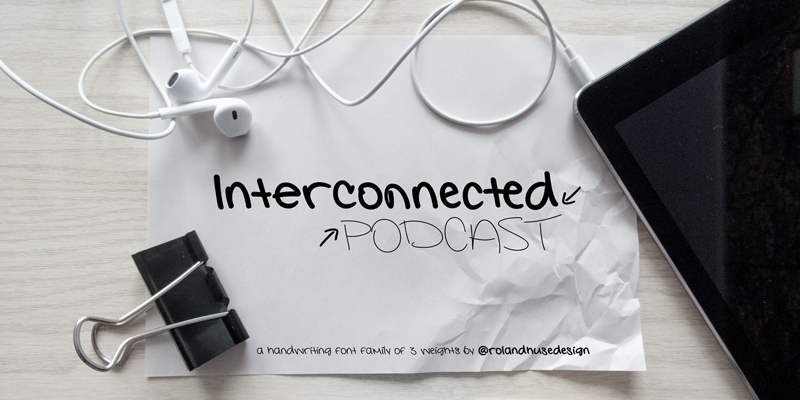
Interconnected
Interconnected Font
A handwriting blockletter font inspired by and based on the handwriting of Dianna Woodward, author and editor of the Interconnected Podcast.
The full version contains at least one stylistic alternate for all the lowercase and uppercase letters, some lowercase has 3 and discretional ligatures for fi, te, th, standard ligatures tt, jj, for a more organic look and flow. There are basic math symbols, currency, punctuation and accents for Western and Eastern European languages 675 glyphs in total.